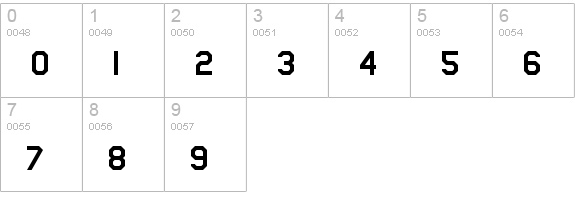
AmarilloUSAF Font Details
AmarilloUSAF is a modern and sleek font that exudes professionalism and sophistication. Its clean lines and sharp edges make it perfect for a wide range of design projects, from logos to branding materials to website headers. The font's bold yet elegant appearance is sure to make a statement and capture the attention of your audience. What sets AmarilloUSAF apart is that it is not only visually striking, but also versatile and easy to read. Whether used in large display sizes or smaller body text, AmarilloUSAF maintains its clarity and legibility, ensuring that your message comes across loud and clear. Best of all, AmarilloUSAF is available for free download at FontsMarket.com. This means that you can access this high-quality font without any cost, making it a valuable addition to your font library. Don't hesitate to give AmarilloUSAF a try and elevate your designs with its bold and sophisticated presence.